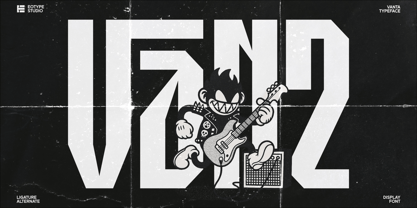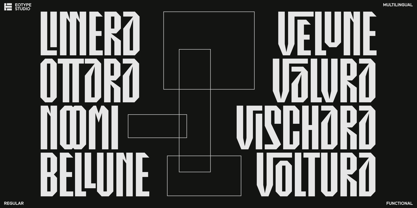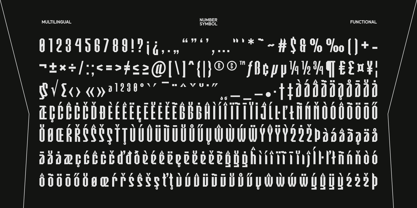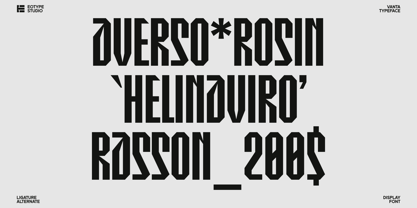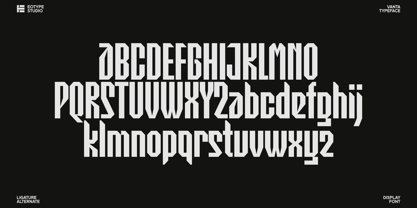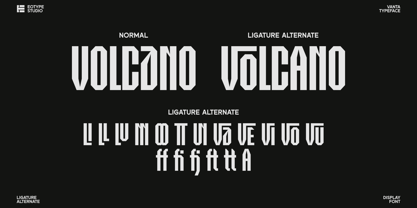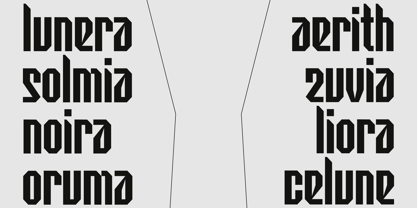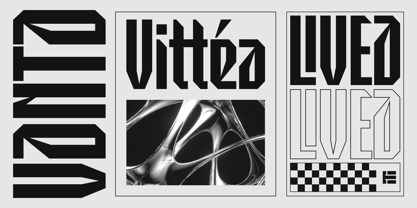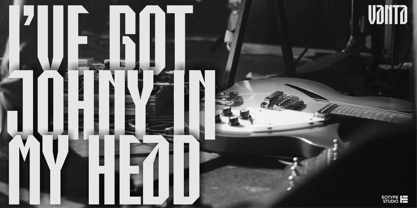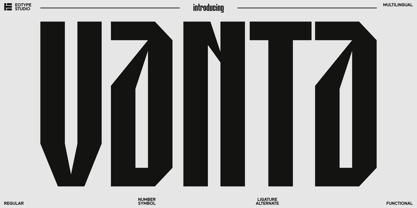
Vanta
by Eotype
The Vanta Font Family was designed by Fajar Ramadan and published by Eotype. Vanta contains 1 styles. More about this family
Vanta Typeface Vanta is a powerful and modern san serif display typeface crafted to make a strong visual impact. Designed with sharp angles, tall proportions, and a distinctive geometric structure, this font brings a bold and futuristic personality while maintaining a refined san serif character. Perfect for headlines, branding, posters, streetwear designs, logos, album covers, and editorial layouts, Vanta stands out with its aggressive yet elegant presence. This typeface is not just visually striking it’s also highly functional. It comes fully equipped with a wide range of features to support both creative expression and professional use.
Designers: Fajar Ramadan
Foundry: Eotype
Eotype Studio is an independent digital creator based in Bandung, West Java, Indonesia. Established in early 2020, Eotype Studio specializes in designing and selling creative, original, and character-driven fonts.As an independent type foundry, Eotype Studio blends contemporary design sensibilities with a distinctive local touch. Each typeface is crafted through visual research, shape exploration, and unique ligature experiments—aiming to deliver bold and functional typography solutions for branding, editorial, and digital interfaces.